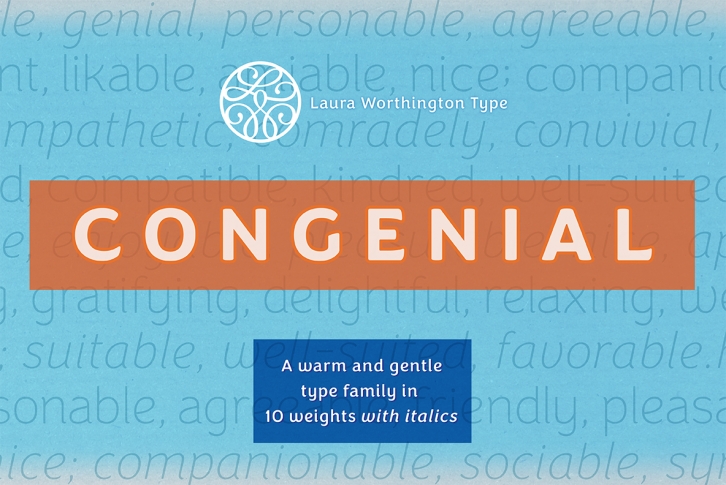
Congenial Italic Thin is a great font that was designed by Laura Worthington Type. Imagine the amount of combinations you can create using this font! The archive is 6.27 MB and it was released on November 29, 2017. Congenial Italic Thin looks beautiful on wedding invitations, greeting cards, logos, posters, labels, t-shirt designs, logos, business cards and is perfect for use in ink or watercolor works, fashion, magazines, packaging and food menus, children's books and more!